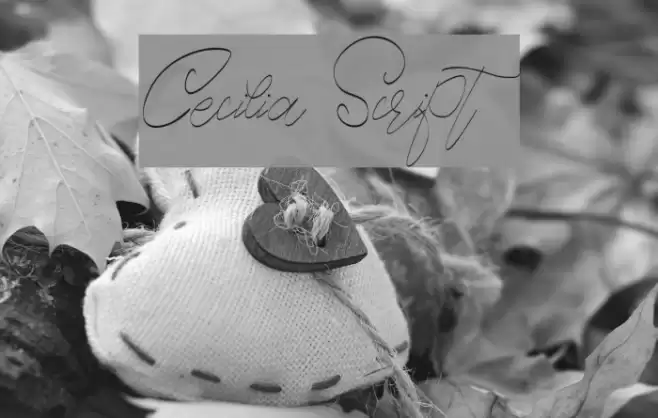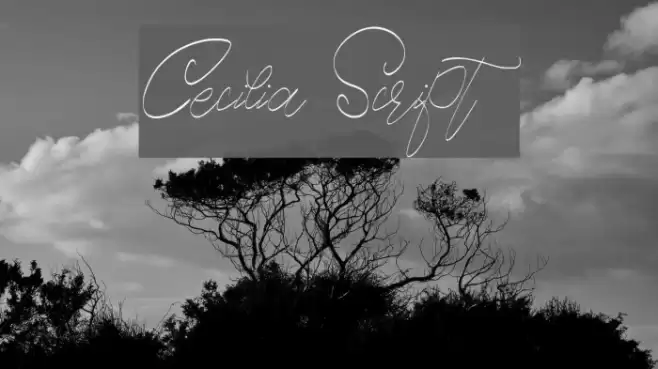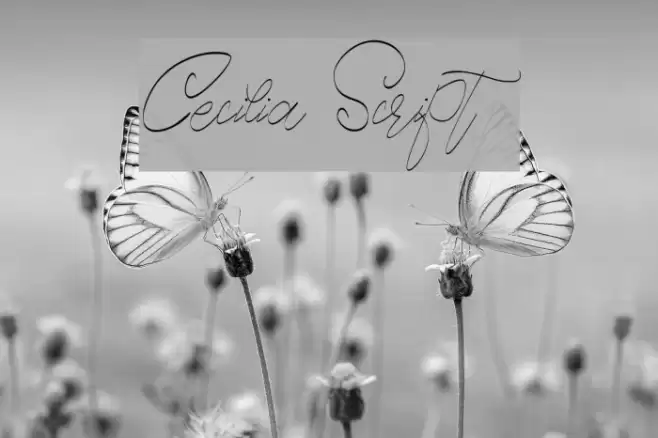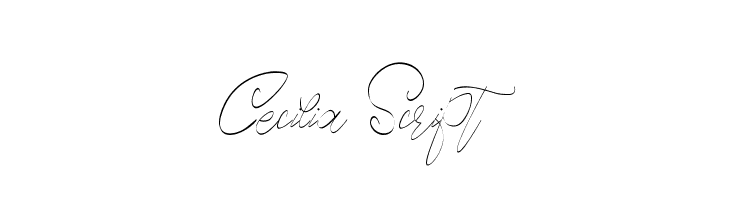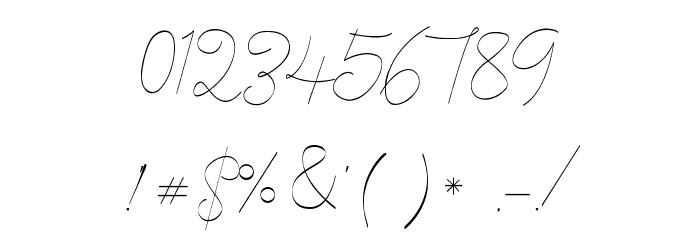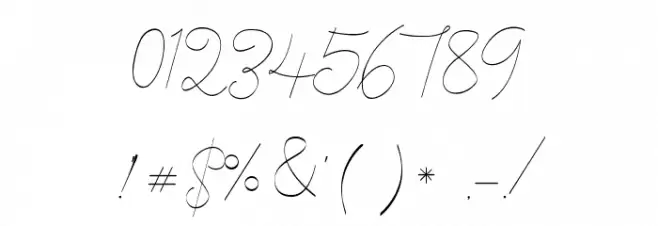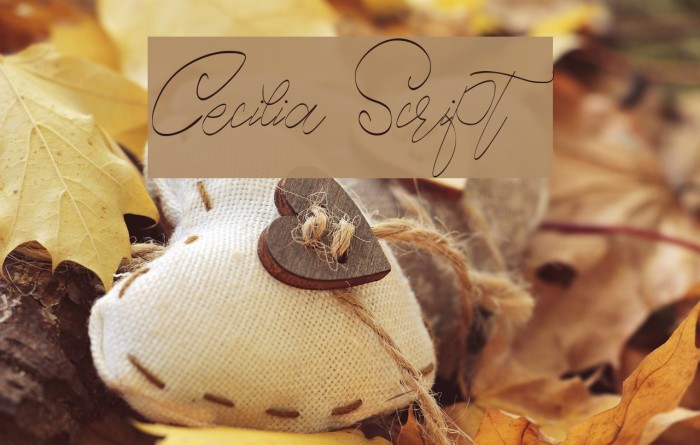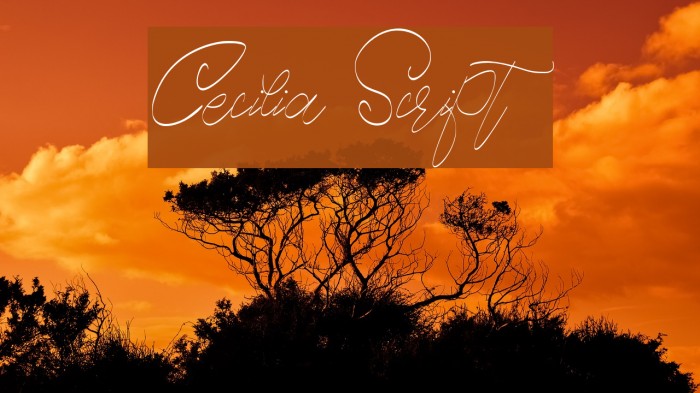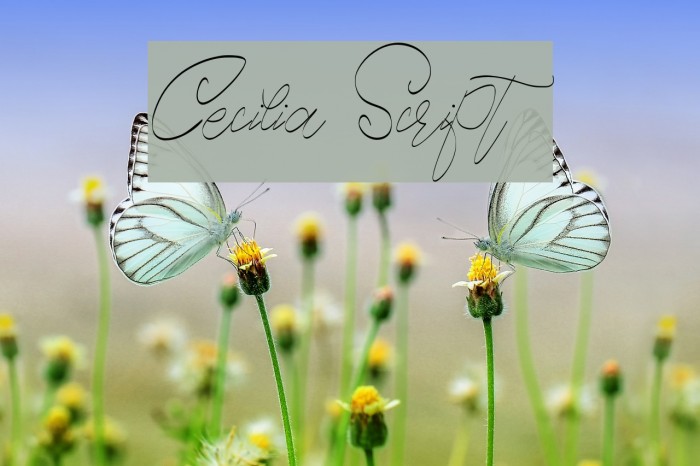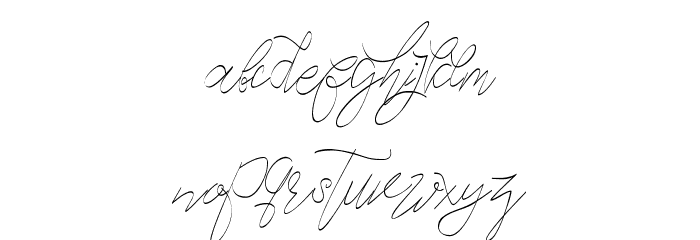
Cecilia Script Font
Cecilia Script Description
This elegant script font features a flowing, cursive style with intricate loops and swirls, reminiscent of traditional calligraphy. The uppercase letters are particularly ornate, with dramatic flourishes that extend beyond the baseline and cap height, adding a sense of grandeur and sophistication. The lowercase letters maintain a consistent fluidity, with gentle curves and connections that enhance readability while preserving the decorative nature of the script. The numerals and special characters are equally stylized, ensuring a cohesive appearance across all text elements. This font is ideal for projects that require a touch of elegance and formality, such as wedding invitations, certificates, and upscale branding.
An elegant, flowing script font with intricate loops and swirls from Handwritten fonts.
- Proposed Projects: Perfect for wedding invitations, formal event programs, luxury branding, and certificates.
- Overall Style: Classic
- Use Case: Headlines, Invitations, Branding